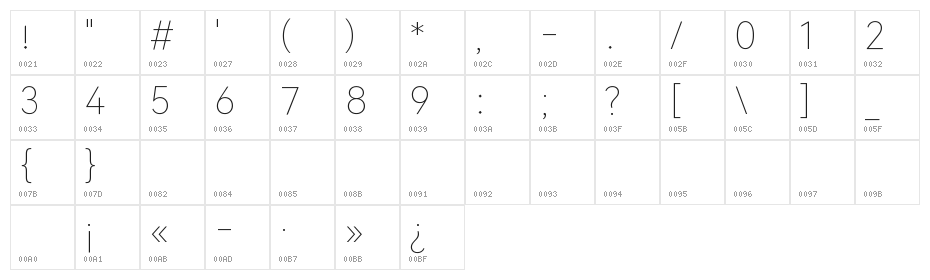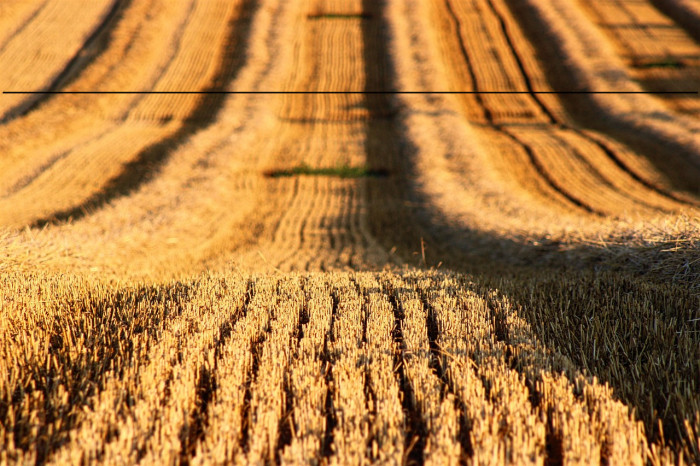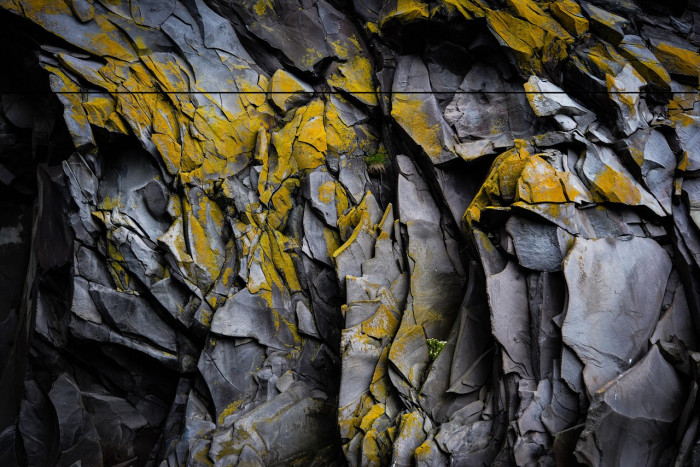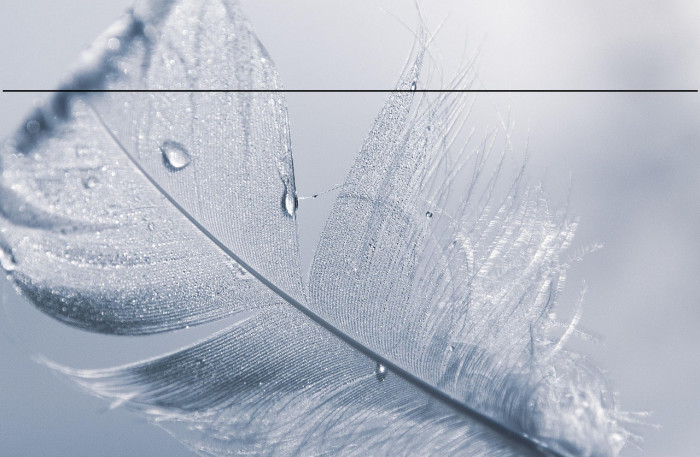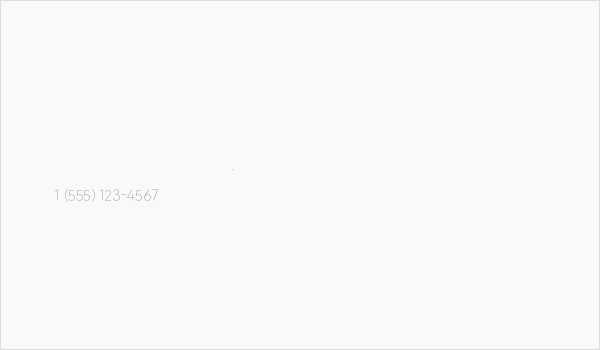
HarmonyOS Sans Naskh Arabic Thin Font
HarmonyOS Sans Naskh Arabic Thin Description
This font features a clean and minimalist design with a focus on clarity and readability. The characters are crafted with a thin stroke, giving it a light and airy appearance. The numerals and special characters maintain a consistent style, ensuring uniformity across different uses. The font's simplicity makes it versatile for various applications, while its modern aesthetic adds a touch of elegance. The spacing between characters is balanced, providing a comfortable reading experience without feeling cramped or overly spaced.
| Proposed Projects | Ideal for digital interfaces, minimalist branding, and modern editorial design. |